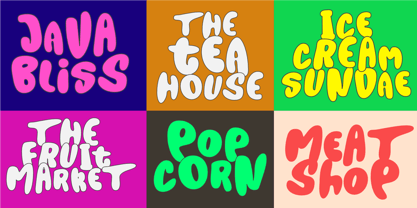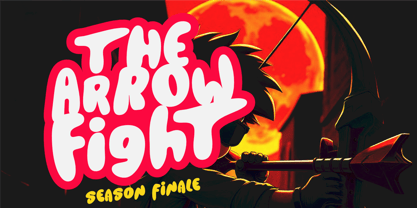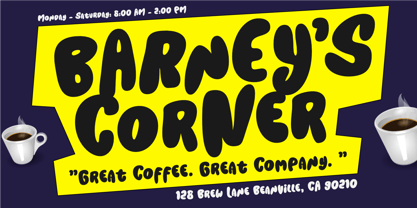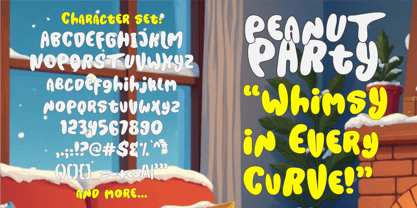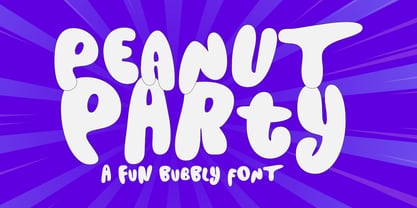
Peanut Party
The Peanut Party Font Family was designed by Aldy Sidik and published by Epiclinez. Peanut Party contains 1 styles. More about this family
Say hello to Peanut Party – a cute, fun, bold, and whimsical display font that's bursting with playful personality! Designed to bring joy and energy to every design, Peanut Party is the perfect choice for creatives looking to add a touch of cartoon charm and hand-lettered boldness to their work.
With its chunky, bubbly letterforms and quirky character, Peanut Party font is ideal for product packaging, branding, kids’ designs, fun logos, headline text, and creative titles. Whether you're designing a cheerful birthday invitation, a snack label, a playful Instagram post, or an eye-catching YouTube thumbnail, this font brings the party wherever it goes!
Every glyph is carefully handcrafted to maintain a whimsical aesthetic and smooth, rounded look—perfect for comic-style layouts, greeting cards, toy branding, and bold typographic posters. Its unique personality makes it a standout choice for designers who want to create something truly unforgettable.
Get ready to go nuts – Peanut Party is here to turn every word into a celebration!